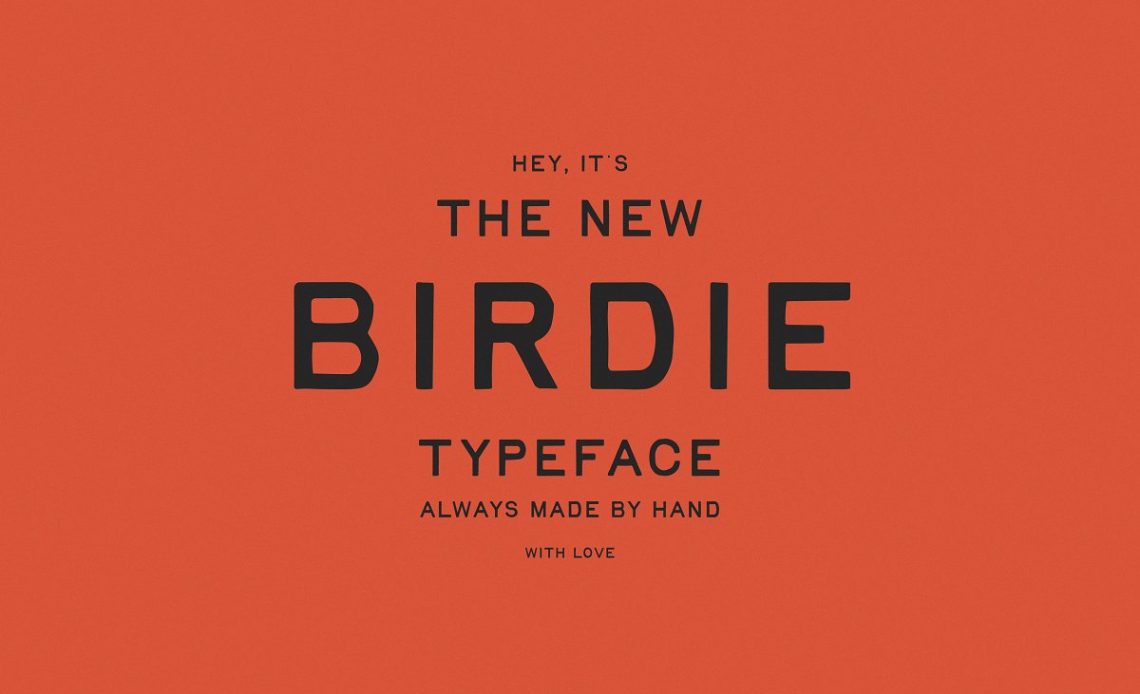
Discover the hidden gem of fonts that will elevate your print book to the next level! Introducing Birdie, the vintage print font that is both timeless and unique. Created by the mastermind Taylor Penton, Birdie stands out in the vast world of fonts as one of the best fonts for print books.
Birdie is not your ordinary font. It is a perfect balance of sophistication and personality. With its vintage print-inspired design, it captures the essence of the past while adding a modern twist. Each letter and number is meticulously crafted to create a cohesive and captivating font family.
But don't be fooled by its vintage appearance, Birdie is versatile and perfect for any occasion. It can be used for book covers, chapter titles, and even body text. Its all-uppercase letters, numbers 0-9, and basic punctuation make it easy to read and accessible to all.
Birdie is more than just a font, it is a statement. It adds character and depth to any print book, making it stand out from the rest. It creates an emotional connection with readers, evoking a sense of nostalgia and charm.